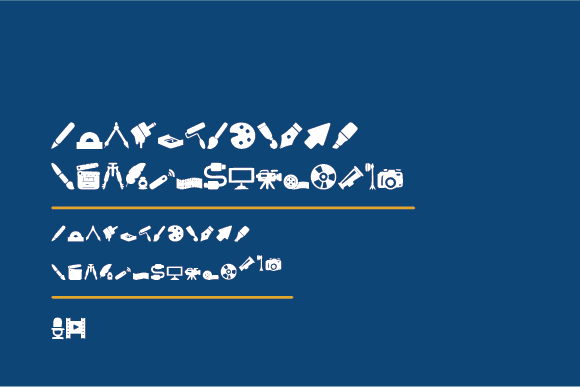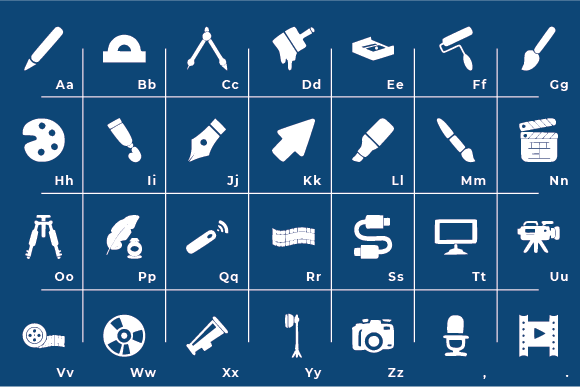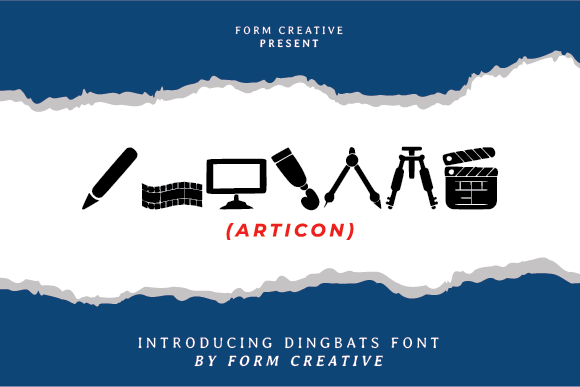
Articon Font
Articon is a striking and powerful font that adds a touch of boldness and style to any design. With its unique and expressive characters, this font is perfect for use as icons or complementary elements in your designs.
The Articon font stands out with its distinctive and visually appealing design. The characters are carefully crafted to create a loud and impactful presence, making them suitable for various design purposes. Whether you’re creating logos, posters, banners, website graphics, or any other visual content, this font will add a sense of dynamism and flair to your work.
The versatility of the Articon font allows you to experiment and explore different design possibilities. It can be used to enhance your overall composition or serve as focal points in your design. The bold and powerful nature of the font makes it ideal for creating attention-grabbing visuals that leave a lasting impression.
Additionally, the Articon font offers a preview of its potential uses, inspiring you to explore its creative possibilities. Whether you’re designing a website, app interface, or marketing materials, this font gives you a glimpse of how it can elevate your design and make it visually captivating.
The Articon font’s strong presence and good taste make it suitable for a wide range of design projects. Its bold and expressive characters make it an excellent choice for branding, advertising, and digital media. It can also be used in print materials, such as brochures, flyers, and posters, to add a touch of uniqueness and style.
In summary, Articon is a cool, powerful, and visually striking font that brings a sense of boldness and taste to your designs. With its versatility and expressive characters, it is well-suited as an icon or complement in your design projects. Whether you’re creating logos, posters, websites, or other visual content, this font will add a touch of creativity and impact to your work.